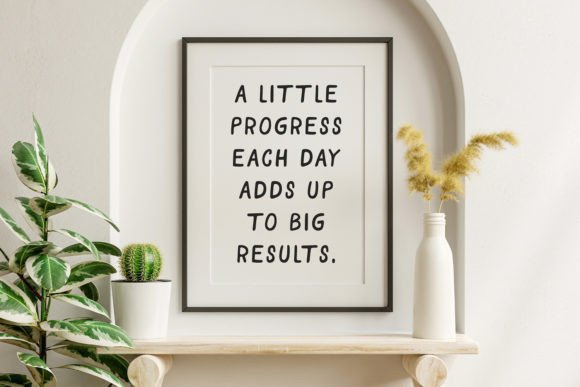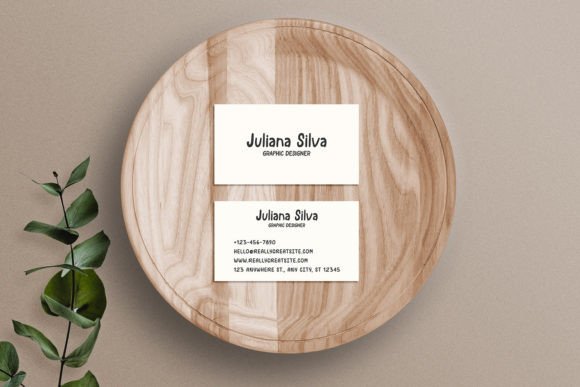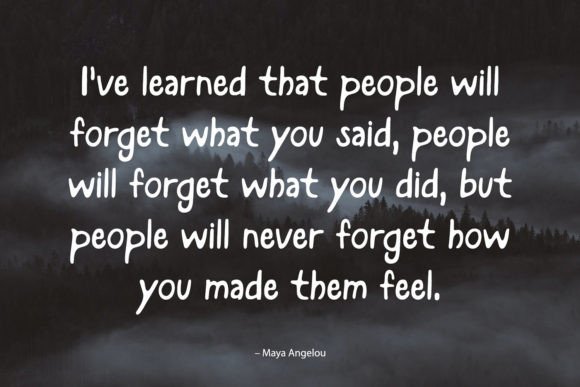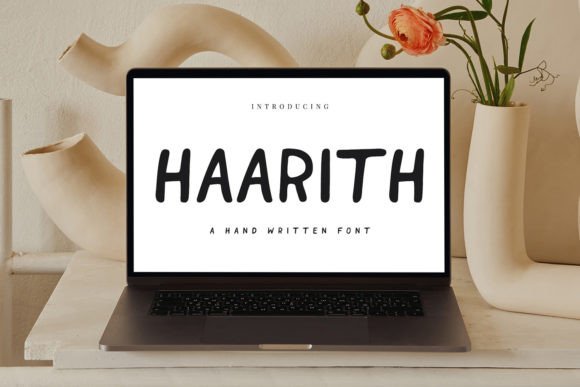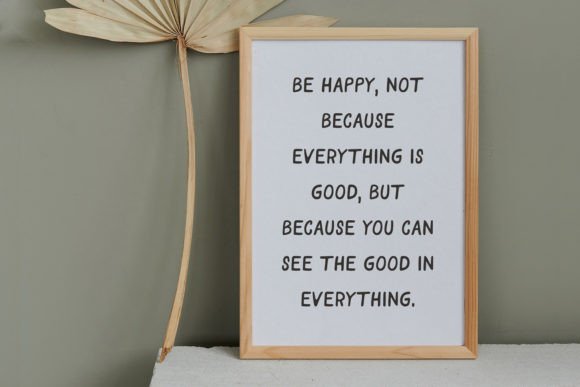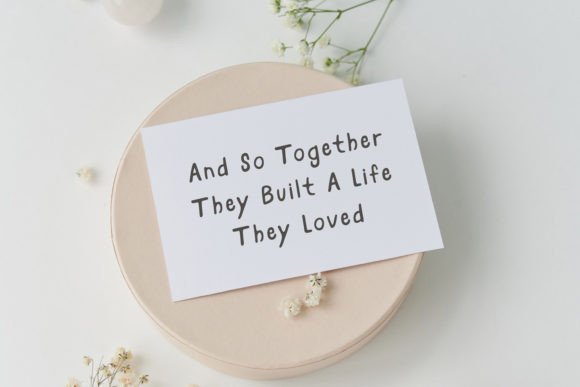
Introducing Haarith Font: The Ultimate Handmade Font for Creative Projects
Are you tired of using the same old fonts for your design projects? Look no further! Haarith Font is a game-changing, handmade font that is sure to elevate your designs to the next level. With its unique blend of cuteness and contemporary feel, Haarith Font is perfect for designers and crafters looking to add a personal touch to their work.
What Makes Haarith Font Special?
Haarith Handmade Font is a brilliant, eye-catching, and attractive font made by hand with a focus on aesthetics and readability. This font is designed to provide a fresh and modern look to your designs, making it ideal for a wide range of applications. Whether you’re working on a logo, packaging, presentation, or social media post, Haarith Font is sure to make your design stand out.
Key Features of Haarith Font
- Comprehensive Character Set: Haarith font contains uppercase letters, lowercase letters, numbers, punctuation, and symbols, ensuring that you have everything you need to create stunning designs.
- Multilingual Support: Haarith font supports multilingualism, making it a great choice for designers who work with clients from diverse linguistic backgrounds.
- Handmade with Love: Haarith Font is carefully crafted by hand to ensure a unique and personal touch in every design.
Haarith font is an excellent choice for a wide range of design projects, including:
- Packaging design
- Presentations
- Logos
- Headlines
- Lettering
- Posters
- Branding
- Quotes
- Titles
- Magazine and newspaper headings
- Web layouts
- Advertising
- Invitations
- Books
Why Choose Haarith Font?
With so many fonts available, why choose Haarith Font? Here are just a few reasons:
- Unique and Eye-Catching: Haarith Font is designed to grab attention and make your designs stand out.
- Versatile: Haarith Font can be used for a wide range of design projects, from logos and branding to packaging and advertising.
- Easy to Read: Despite its unique and handmade feel, Haarith Font is easy to read and understand, making it perfect for body text and headlines.
Tips for Using Haarith Font
Here are a few tips for getting the most out of Haarith Font:
- Experiment with Different Sizes: Haarith Font looks great in a variety of sizes, from small body text to large headlines.
- Play with Colors: Haarith Font comes alive with color! Try pairing it with bright and bold colors to add some extra personality to your designs.
- Mix and Match: Don’t be afraid to mix and match Haarith Font with other fonts to create a unique and eye-catching design.
In conclusion, Haarith Font is a brilliant, eye-catching, and attractive font made by hand with cute and contemporary feels for future projects. With its comprehensive character set, multilingual support, and handmade charm, Haarith Font is perfect for designers and crafters looking to add a personal touch to their work. Whether you’re working on a logo, packaging, presentation, or social media post, Haarith Font is sure to make your design stand out.